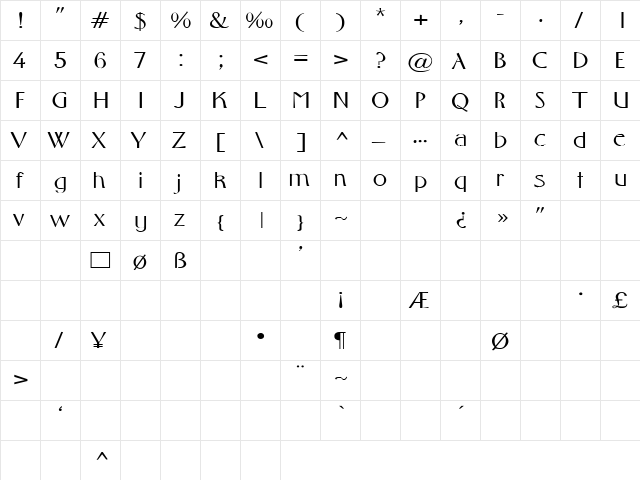
Slave 3 Regular
Design Context for Slave 3 Typeface
Slave 3 takes a measured approach to typography — its balanced proportions and neutral character make it a reliable workhorse for both digital and print work.